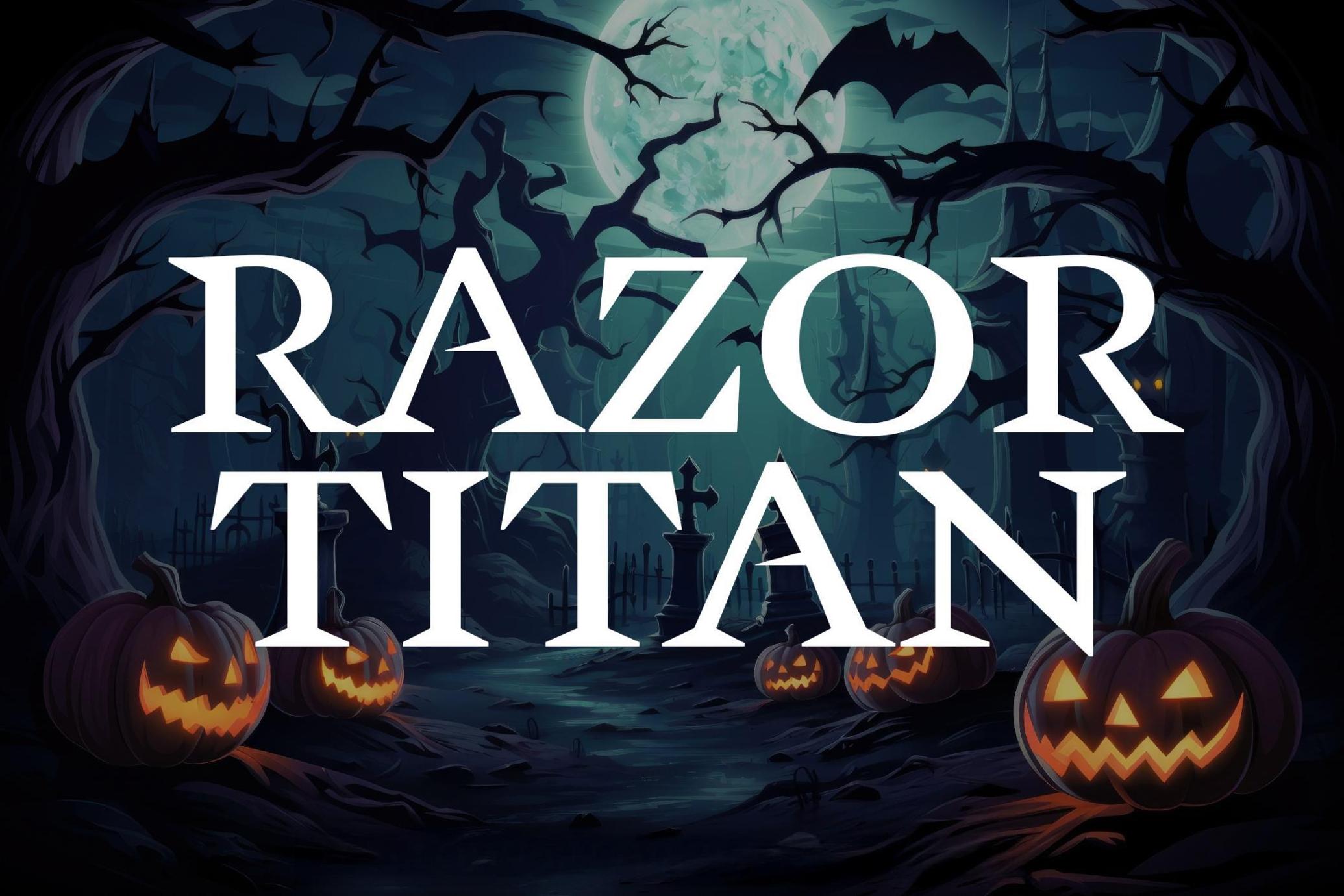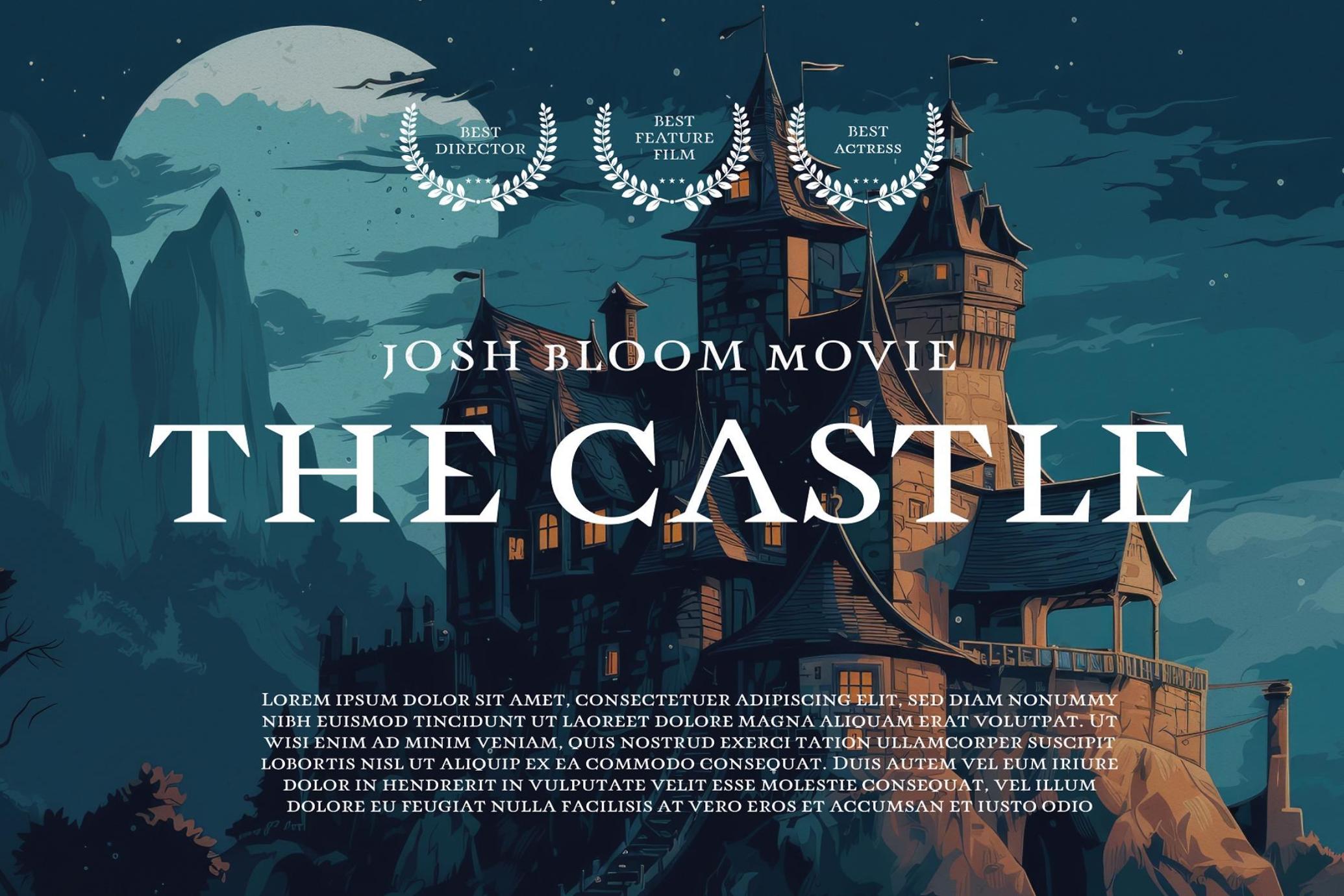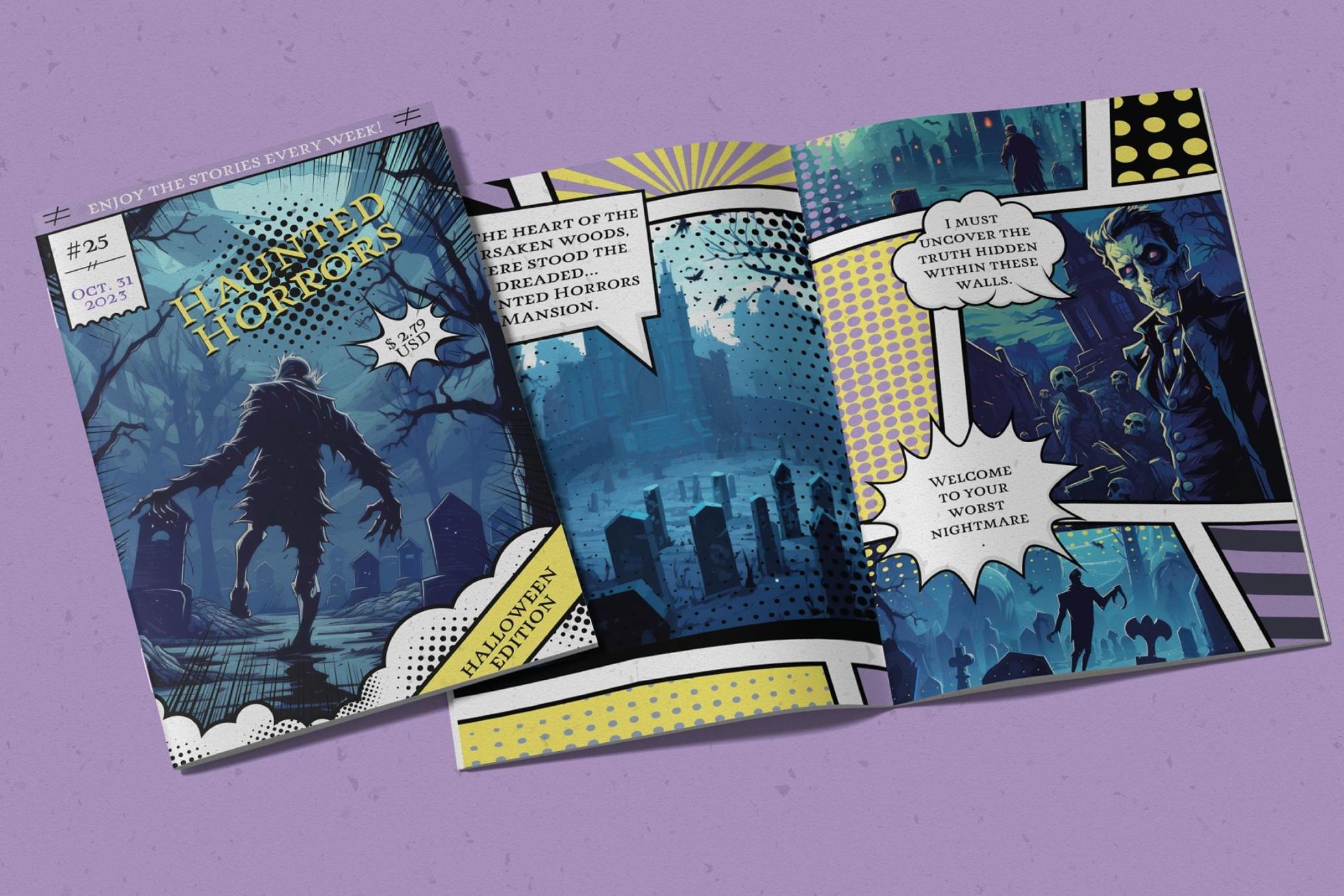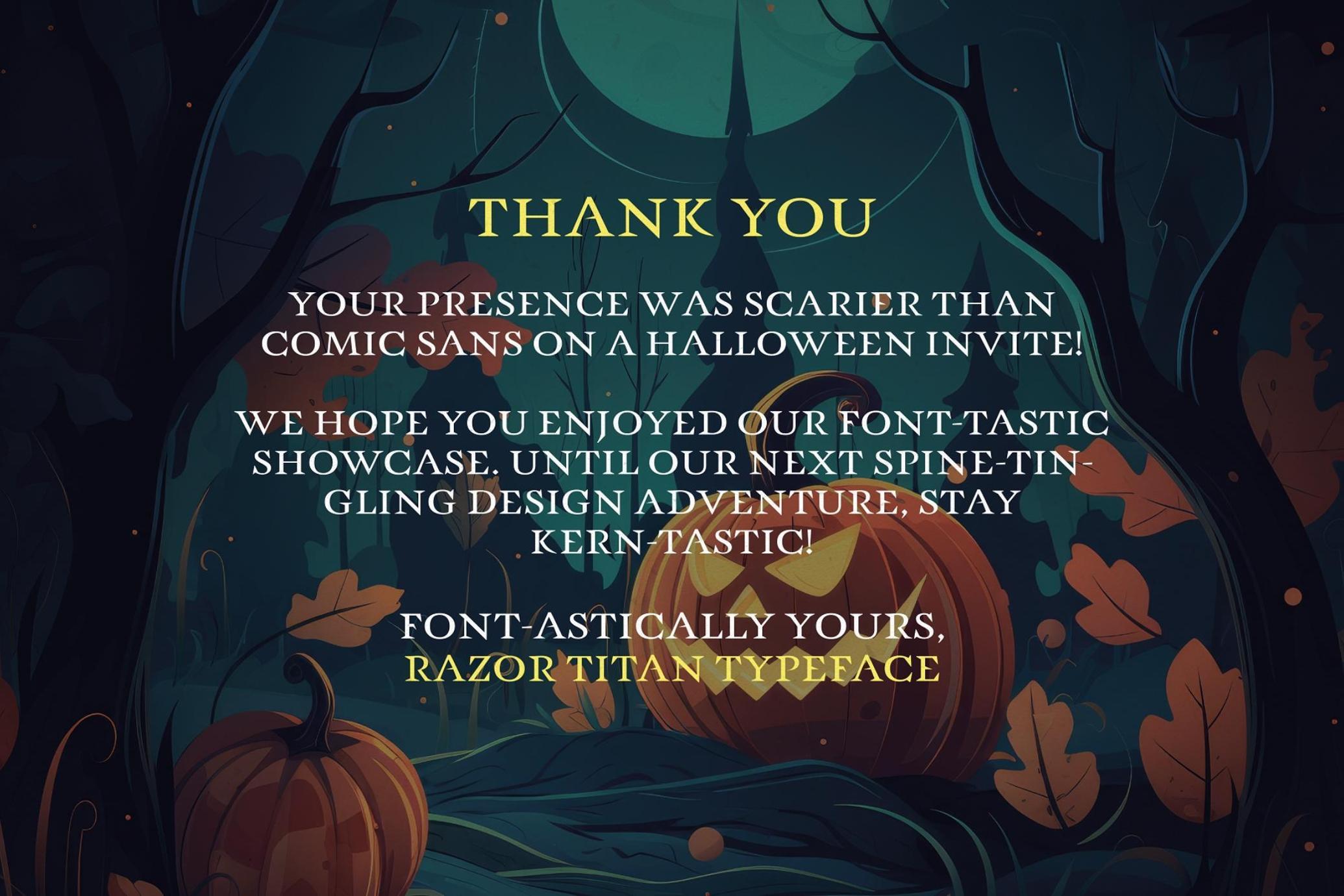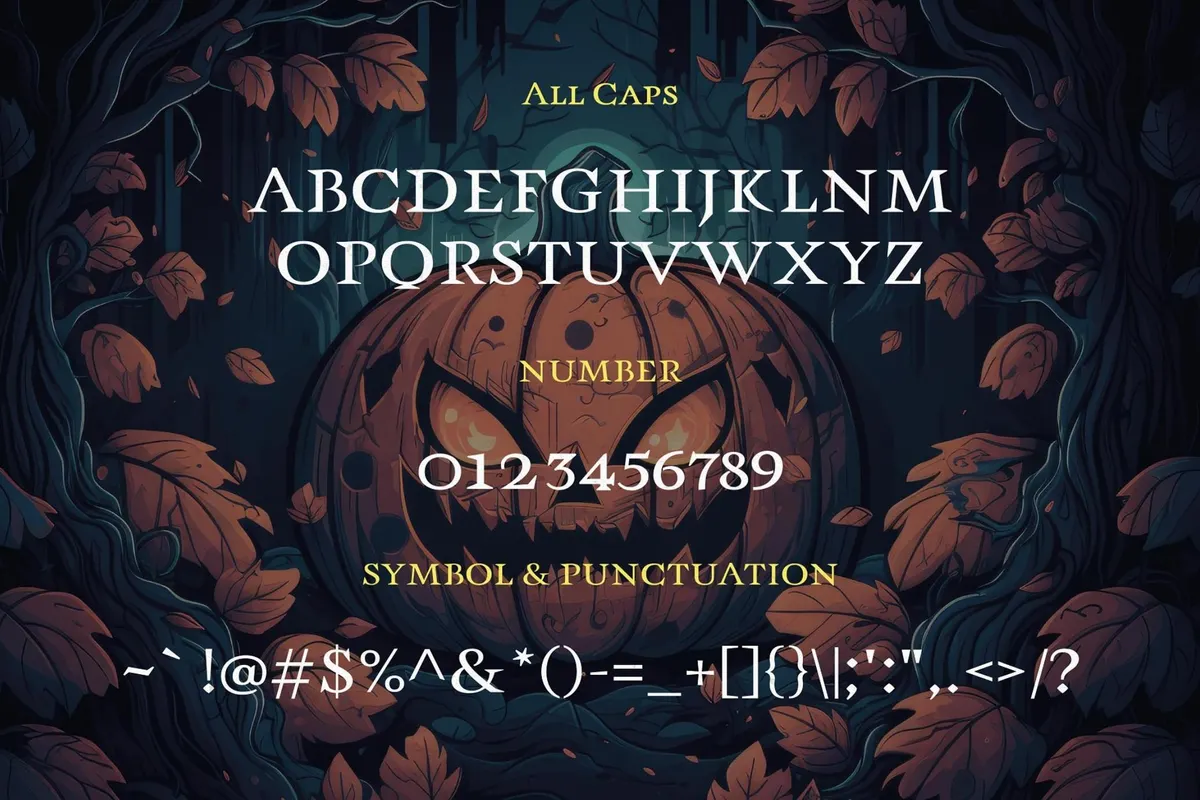
Razor Titan - Halloween Typeface
Get ready to unleash the dark and daring side of design with Razor Titan, the razor-sharp Halloween-inspired typeface that will haunt your imagination and electrify your creations!
Razor Titan isn't just a typeface; it's a gateway to a realm of dark, unbridled creativity. It's your secret weapon to crafting designs that send shivers down spines and leave an indelible mark. Elevate your projects, mesmerize your audience, and embrace the Razor Titan typeface that's rewriting the rules of design fear.